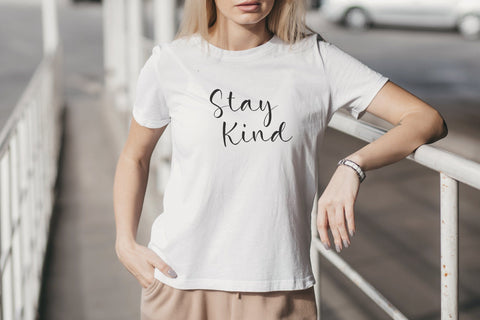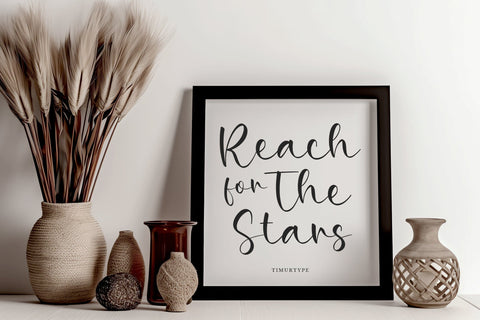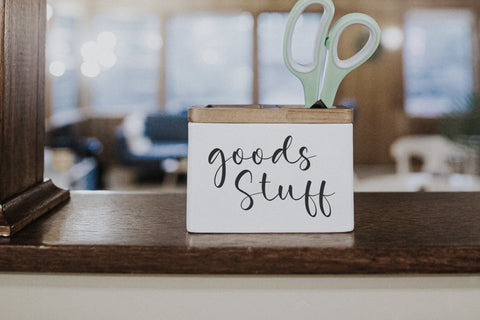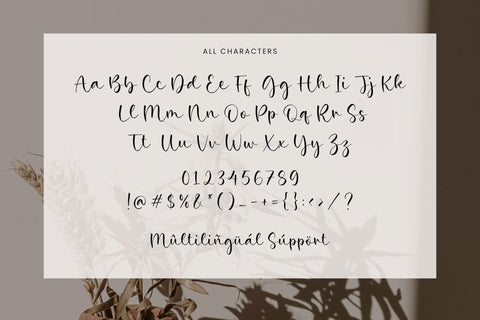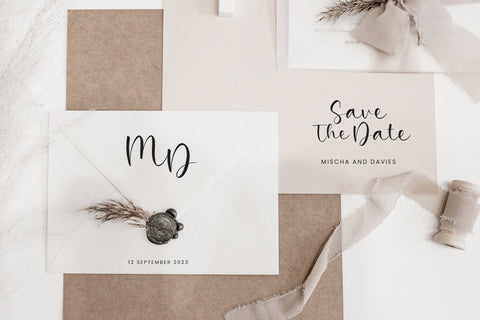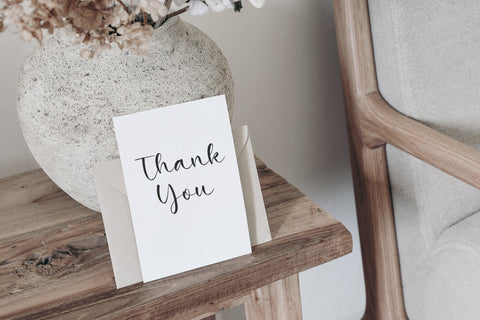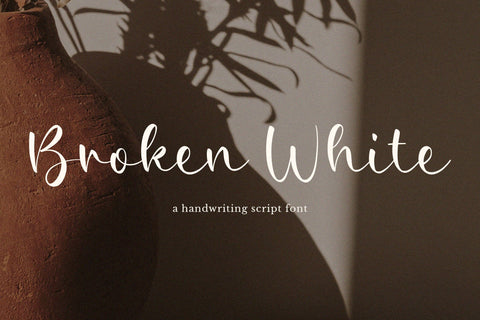
Broken White - Handwriting Script font
Introducing by Timur type
Proudly Present, Broken White
Broken WhiteA Handwritten Script Font , which was created with great care and specially created for you
Broken White is perfect for product packaging, branding project, megazine, social media, wedding, or just used to express words above the background.